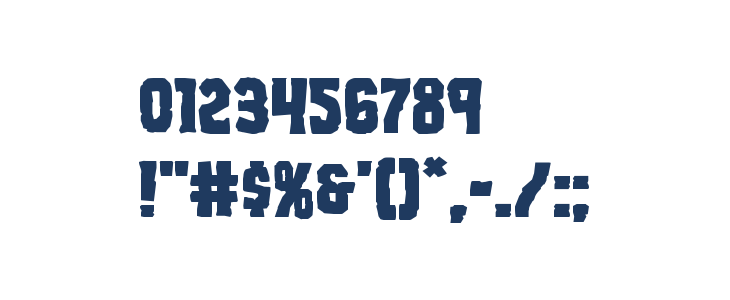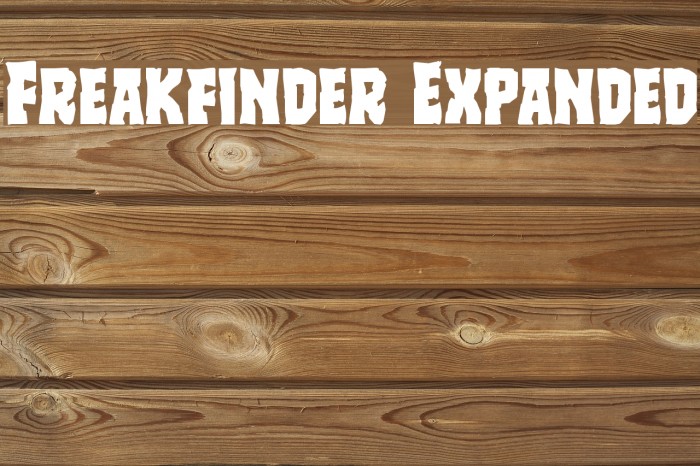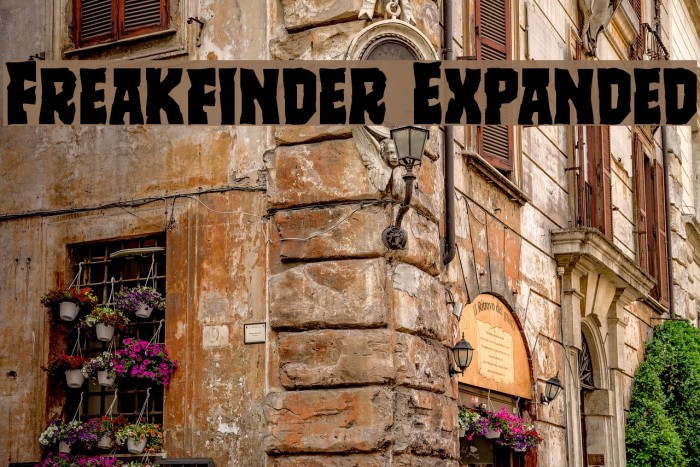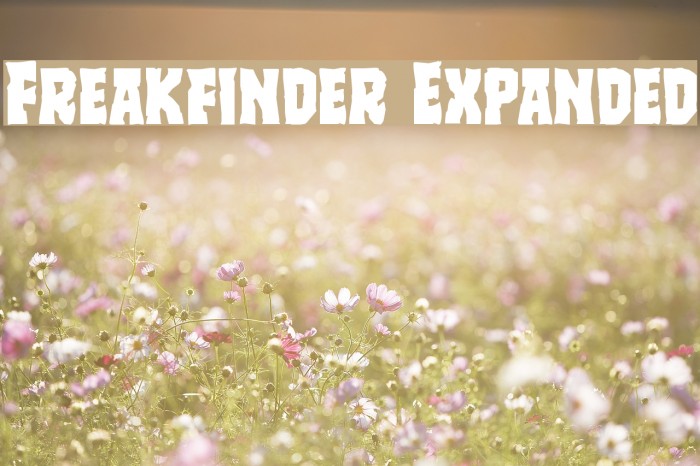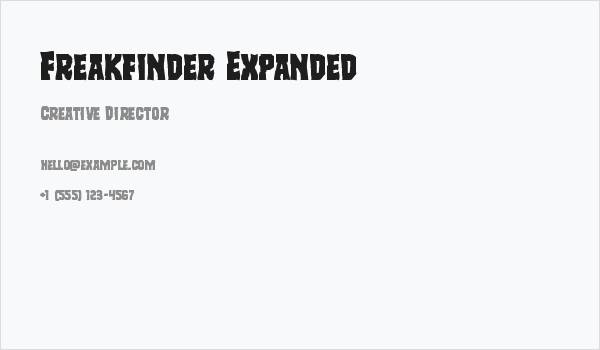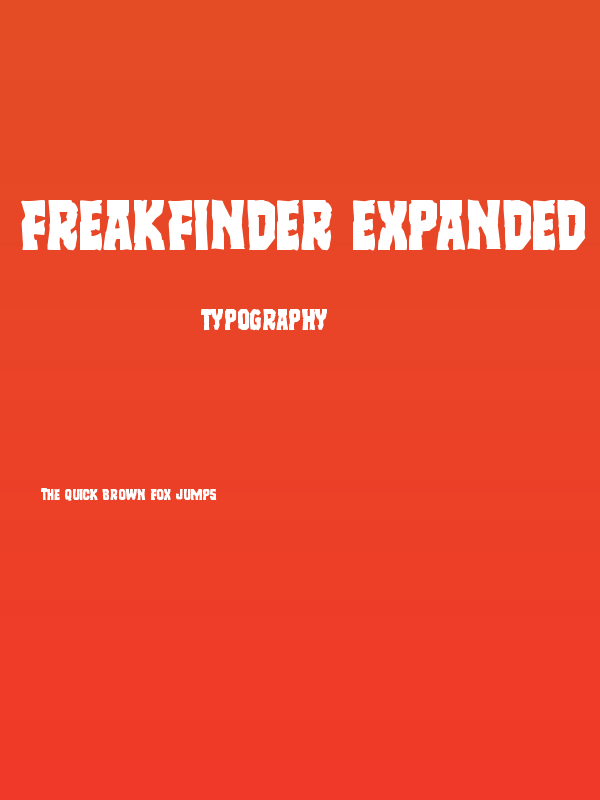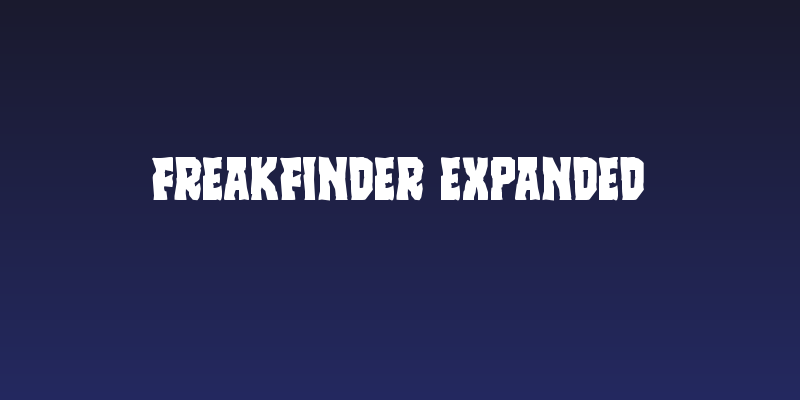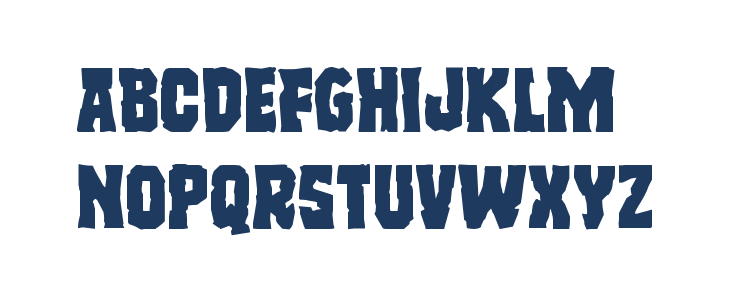
Freakfinder Expanded Font
Freakfinder Expanded Description
This font features a bold and rugged design, characterized by its jagged and irregular edges that give it a distressed and edgy appearance. The letters are thick and substantial, with a hand-crafted feel that suggests a sense of urgency and dynamism. The uppercase and lowercase letters maintain a consistent style, while the numbers and special characters complement the overall aesthetic. This font's unique style makes it stand out, offering a distinct visual impact.
| Proposed Projects | Ideal for projects that require a bold statement, such as posters, album covers, or branding for edgy or alternative products. |